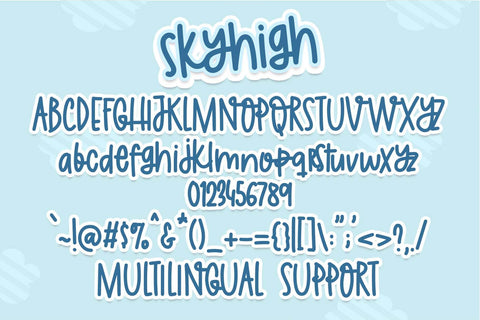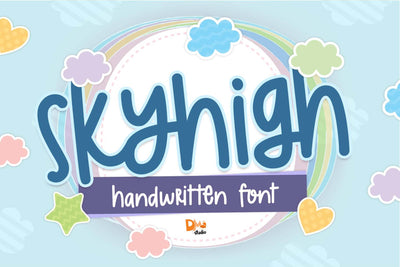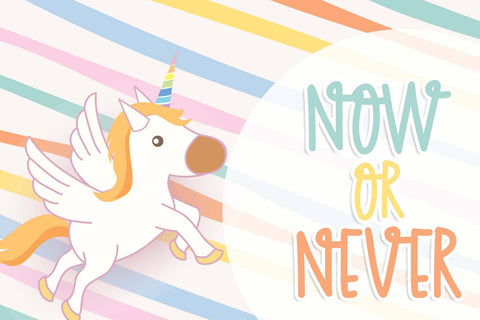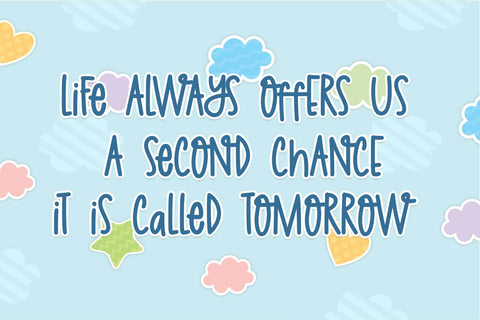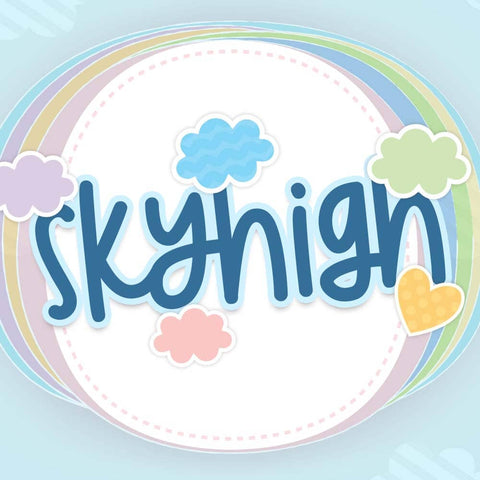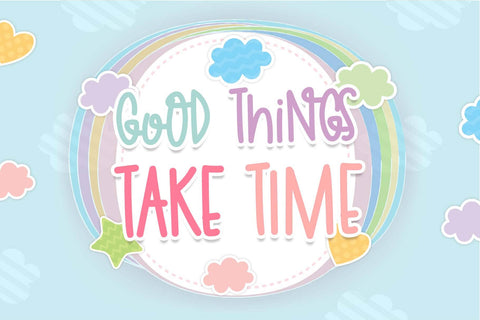
Skyhigh Font
Skyhigh Font is a sleek and modern typeface crafted to elevate your designs to new heights. With its clean lines and contemporary appeal, this font is perfect for a variety of applications, including branding, websites, posters, and more. Immerse your projects in a stylish and sophisticated atmosphere with the Skyhigh Font.
- Sleek and Modern Design: The Skyhigh Font boasts a sleek and modern design, adding a touch of sophistication to your text.
- Versatility in Application: Ideal for a wide range of design projects, from corporate branding to web design, offering a contemporary and polished aesthetic.
- Uppercase and Lowercase Letters: Both uppercase and lowercase letters included for creative flexibility and balanced typography.
- Punctuation and Symbols: A comprehensive set of punctuation marks, numerals, and symbols ensures versatility and consistency in design.